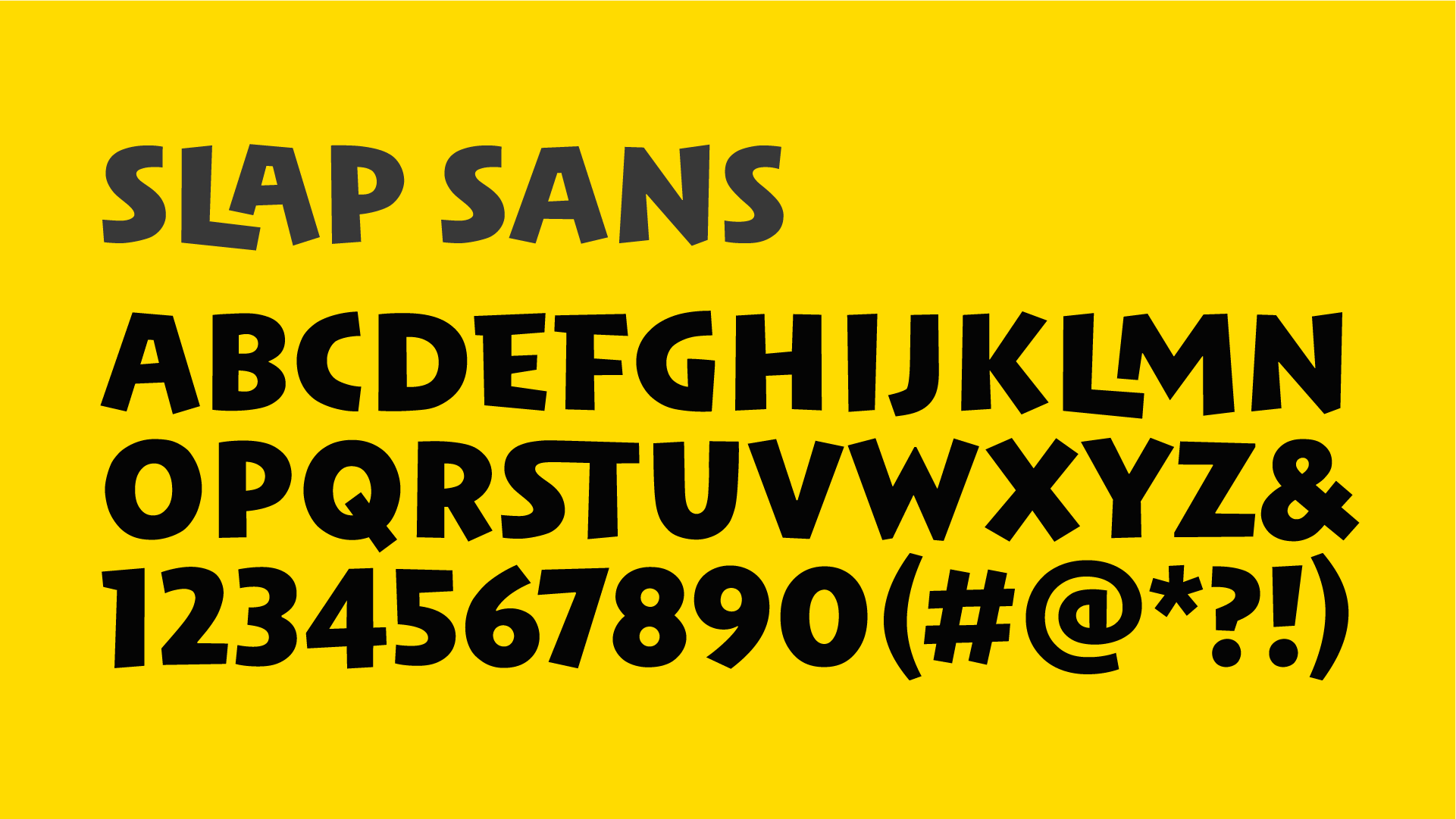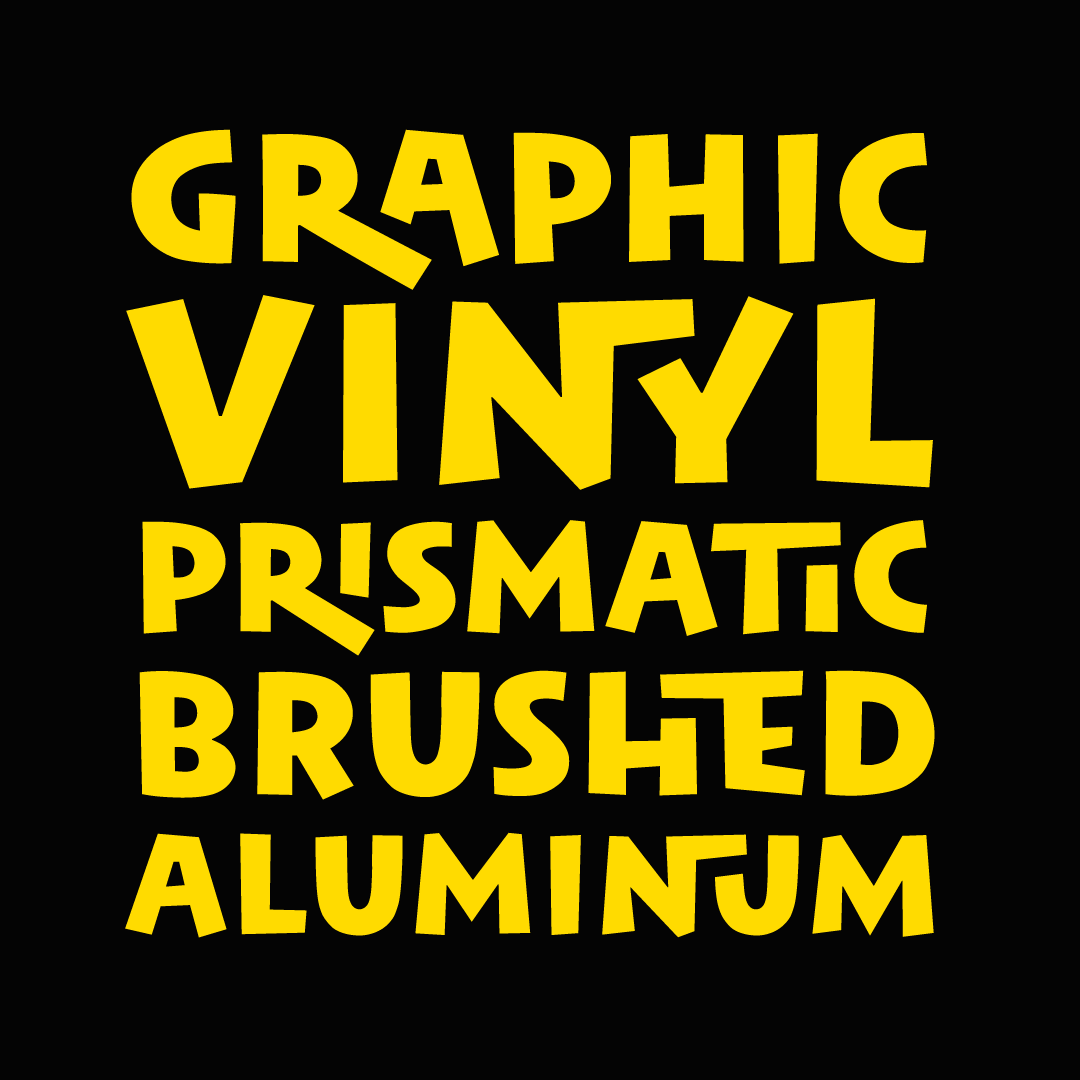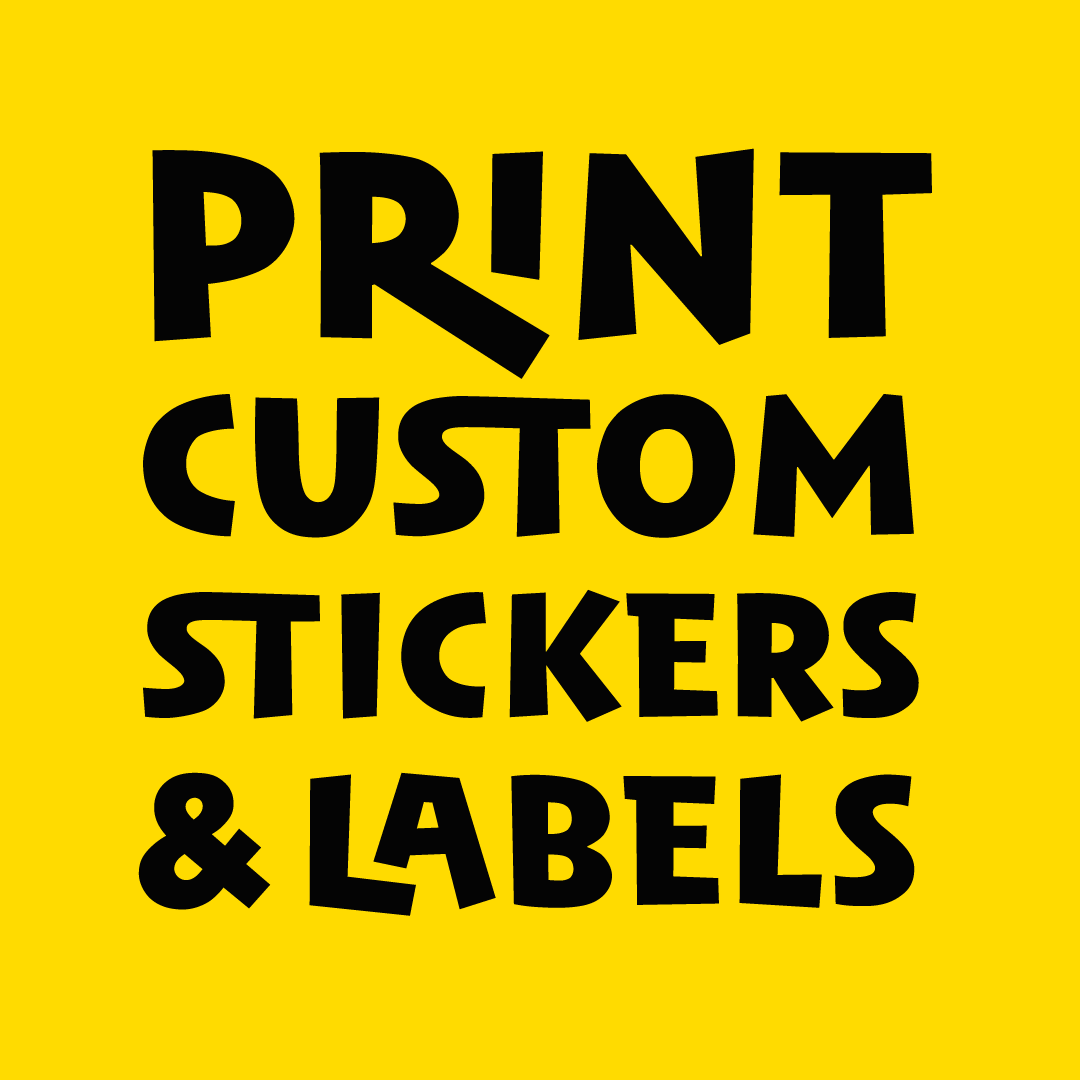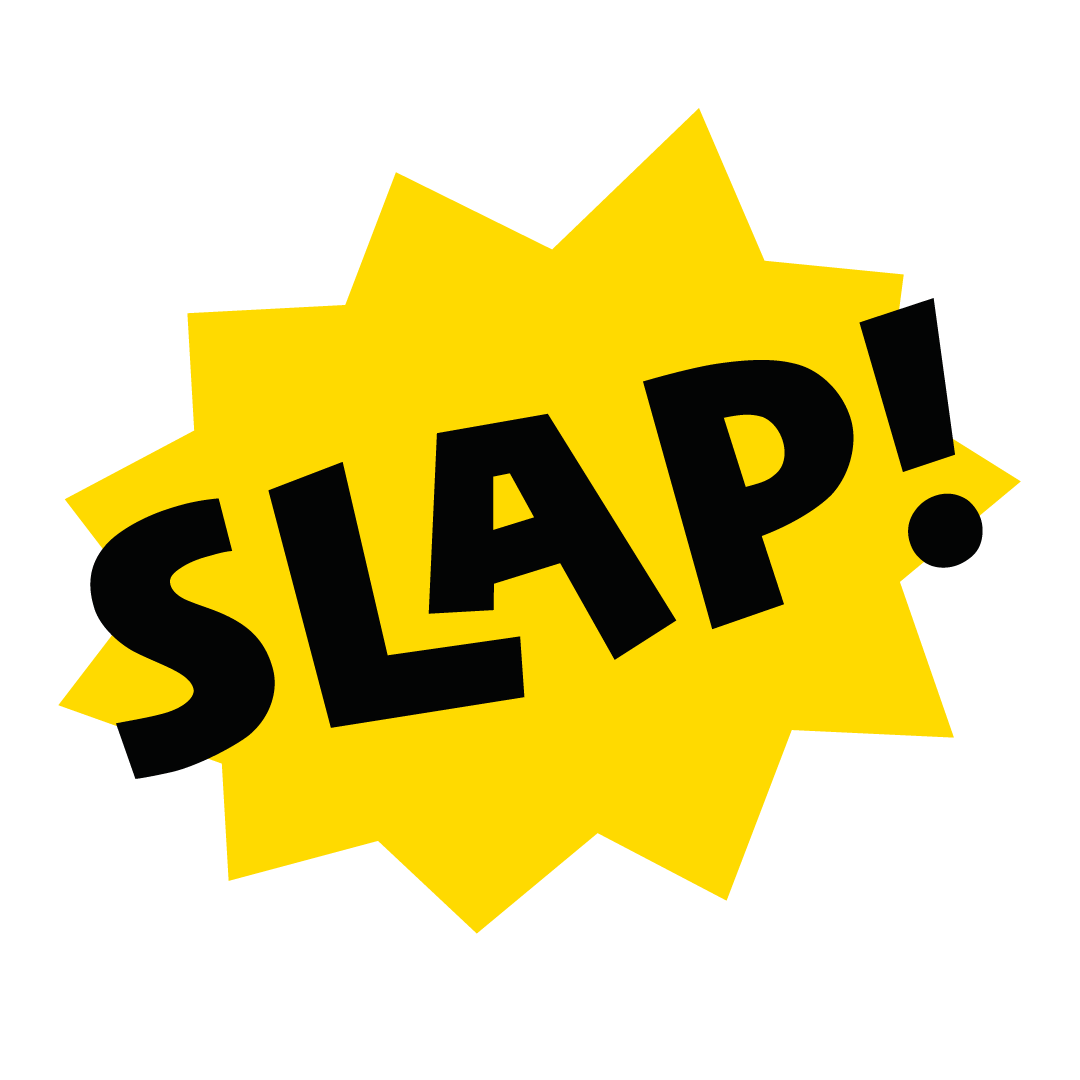
Slap Sans
Custom typeface for StickerApp, specialists in printing stickers.
StickerApp features a lot of ligatures and contextual alternates to create a varied, fun and seemingly handmade appearance.
Normally, typographers are advised not to stretch or distort letterforms. The lettershapes of Slap Sans, by contrast, are designed to withstand some rough treatment. It should be easy and fun to use. Just like printing stickers.
Slap Sans character set